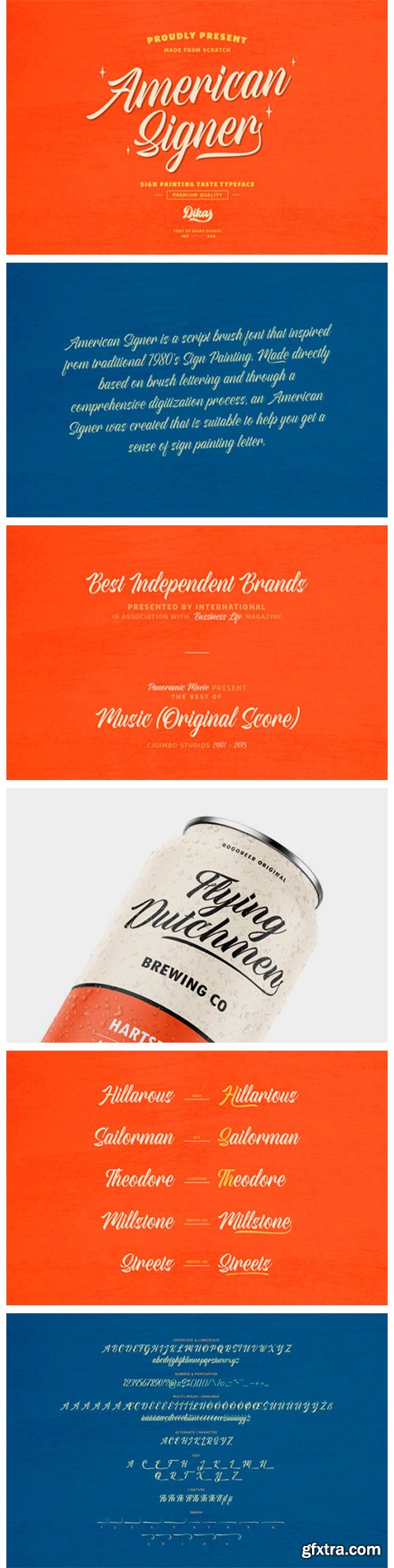
American Signer Font
American Signer is a modern handwritten font that is readable, bold and stylish. It is defined by smooth curves and is perfect for fashion branding or editorial designs. Add it confidently to your projects, and you will love the results.